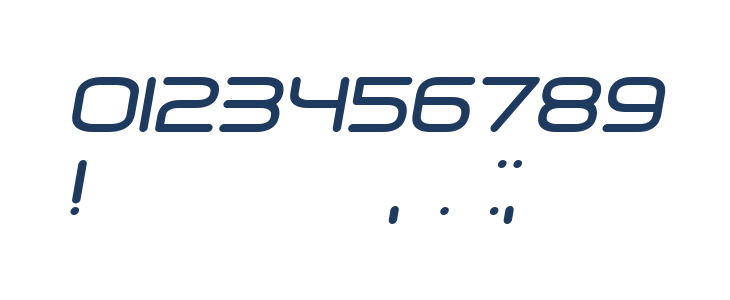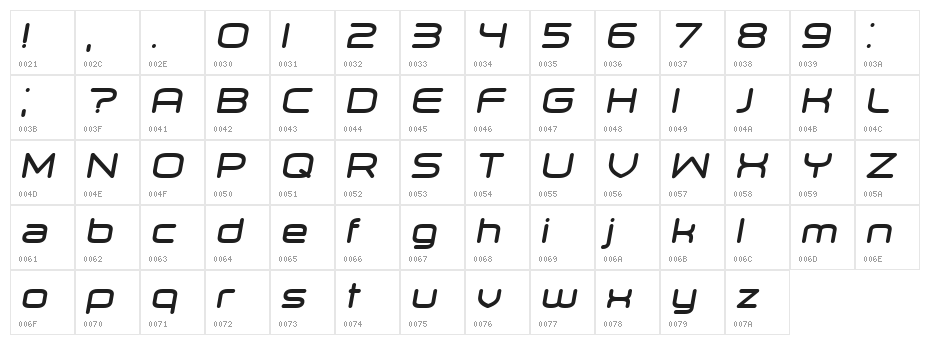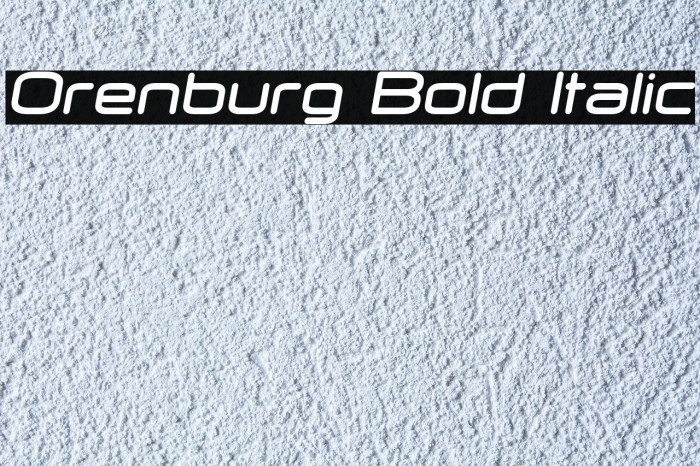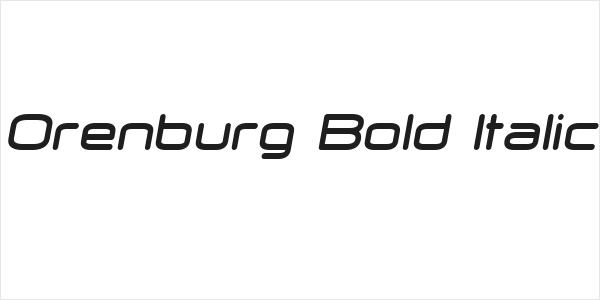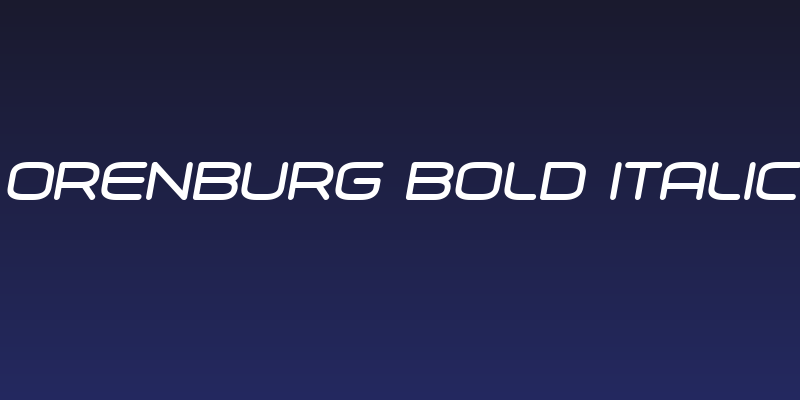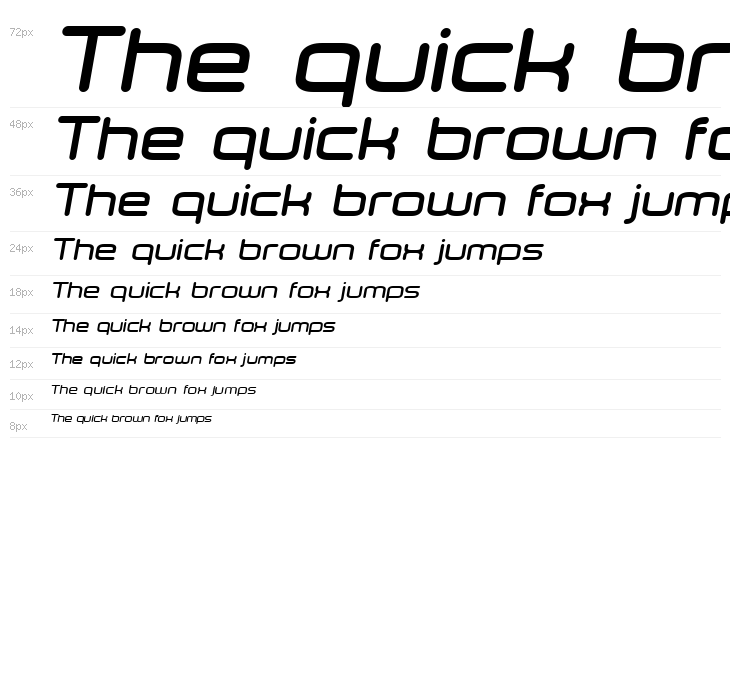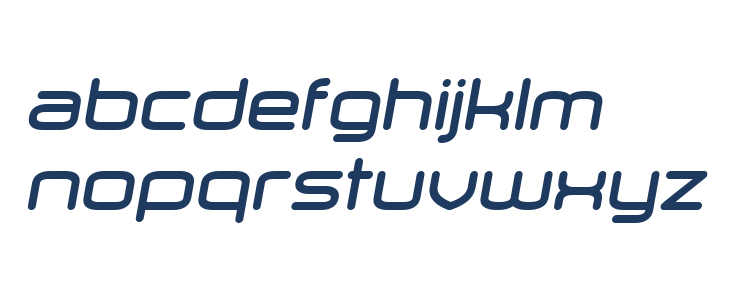
Orenburg Bold Italic Font
Orenburg Bold Italic Description
This font features a sleek, modern design with a bold and italicized style. The characters are slightly condensed, giving it a streamlined appearance. The rounded edges and smooth curves add a touch of elegance, while the consistent stroke width maintains a clean and professional look. The uppercase and lowercase letters are well-balanced, and the numerals are clear and easy to read. The special characters are distinct and integrate seamlessly with the rest of the font, making it versatile for various design needs.
| Use Case | Headlines, Logos, Digital Media |
| Proposed Projects | Ideal for branding, advertising, and digital media projects that require a modern and professional touch. |